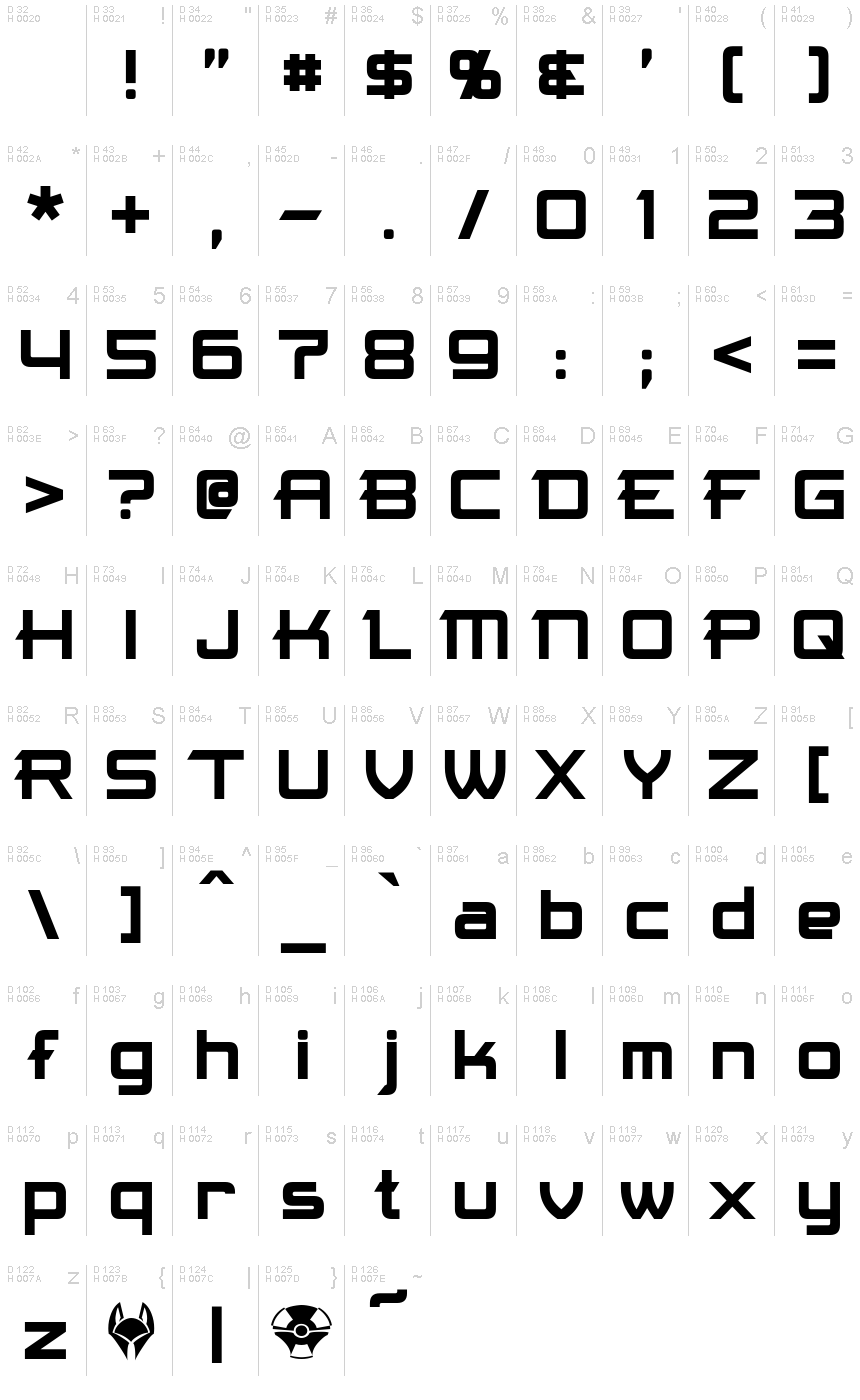
Maximize
Maximize is a dynamic and futuristic display typeface, inspired by the iconic Transformers: Beast Machines franchise. Its angular, yet refined forms create a bold and impactful aesthetic, perfect for grab-your-attention headers, logotypes, and titles.
The subtle angled flourishes on many of the letters add a touch of character, while the expanded width lends an air of strength and confidence. Maximize's full alphabet, extended punctuation, and Euro support make it a versatile choice for a wide range of design applications, from product branding to sci-fi-inspired editorial layouts.
With its bold, italic, and bold-italic variants, Maximize offers designers ample flexibility to craft captivating typographic compositions.